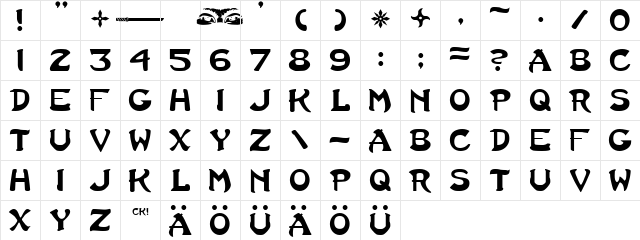
Last Ninja is a composed and adaptable typeface that performs quietly and consistently across a wide range of design contexts.
Pro Tip: Use Last Ninja in both headline and body roles to test its range before committing to a single application.